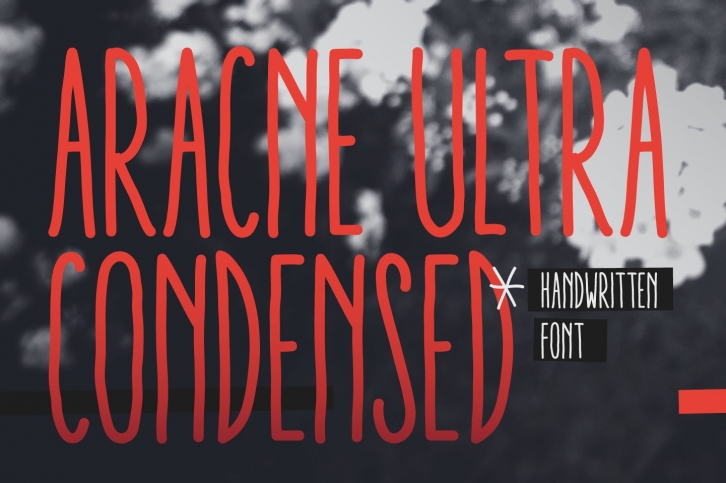
Aracne Ultra Condensed is a gorgeous font that was realeased on March 2, 2016. The font can be used in many style contexts and design environments. Perfect for invitations, magazines, websites, logos, and more! It was designed by antipixel and the file size is 3.52 MB. Thanks for checking out this font!